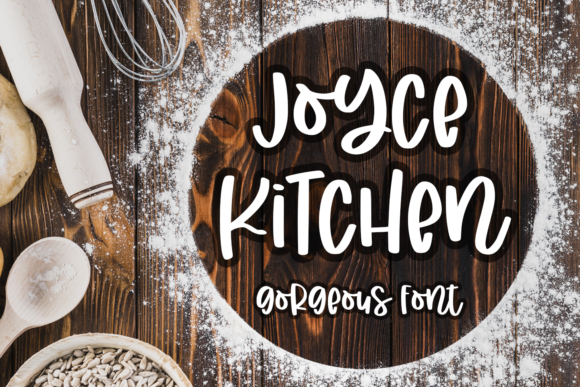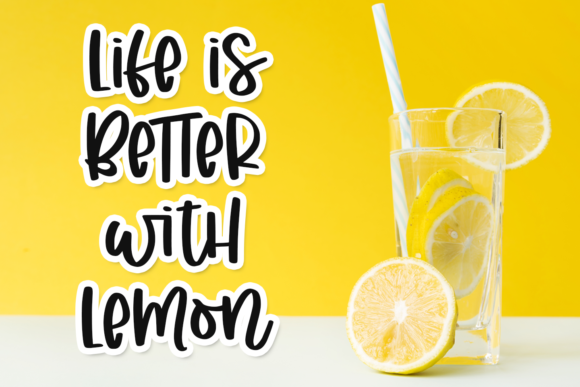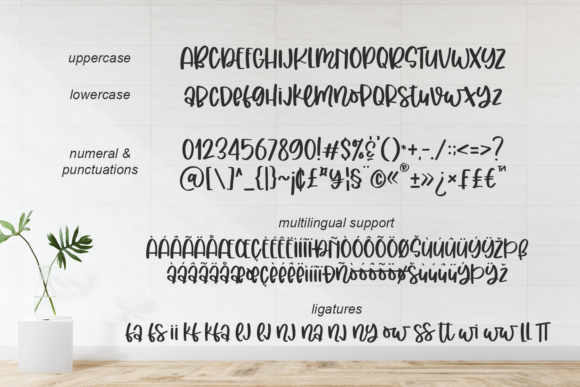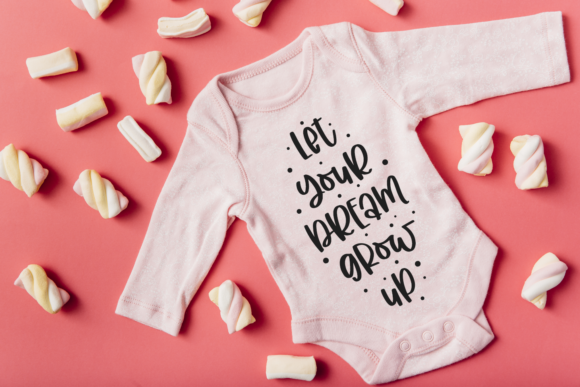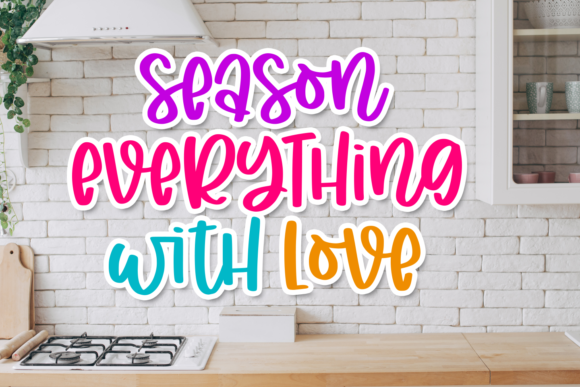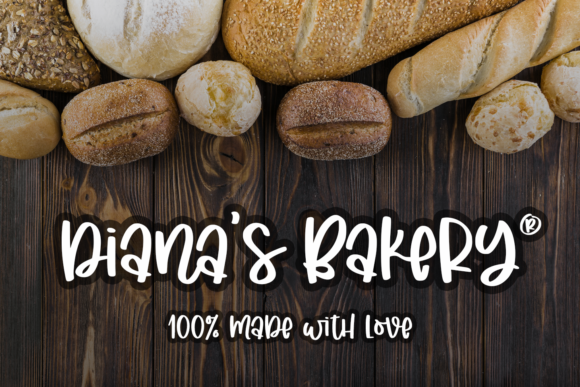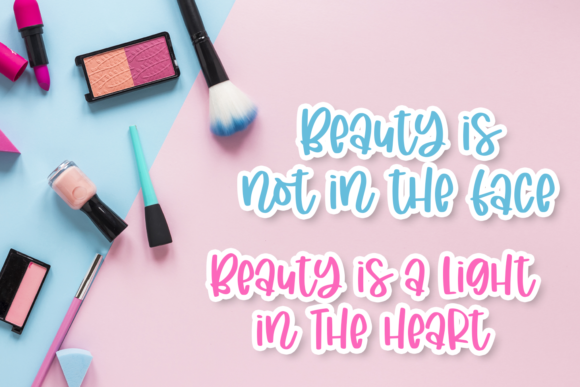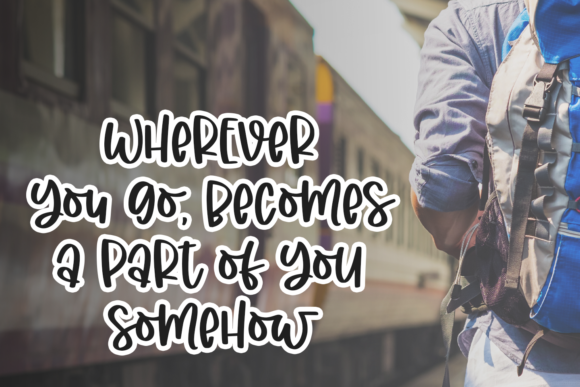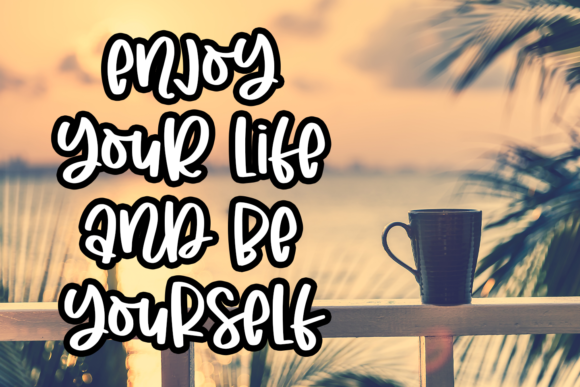
Joyce Kitchen Font
About Joyce Kitchen Font
Joyce Kitchen is a casual, fun handwritten font. It maintains its classy calligraphic influences while feeling contemporary and fresh. This versatility will appeal to a wide range of crafty ideas, from letterheads and titles, to stationery.